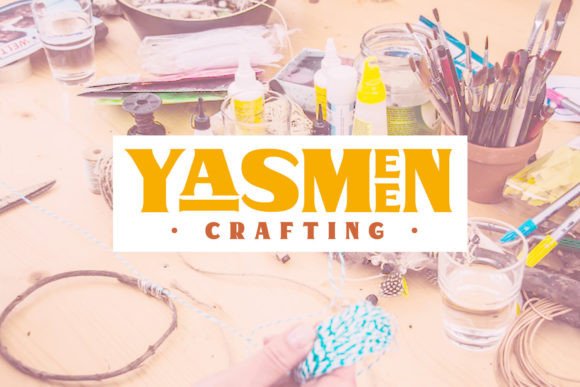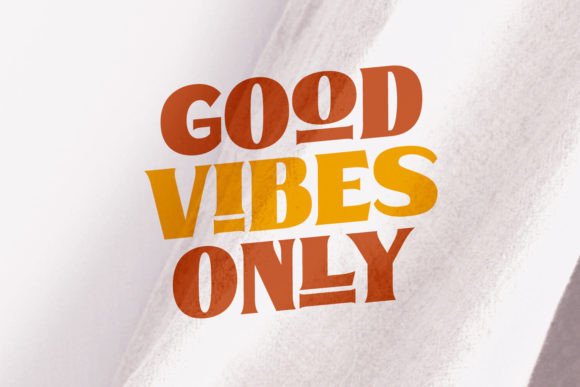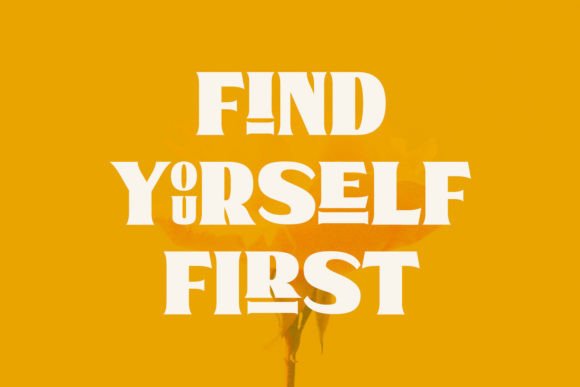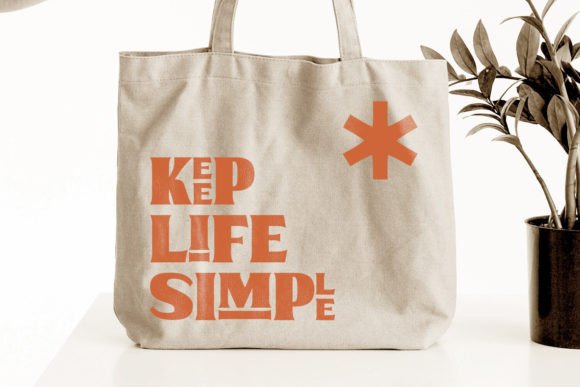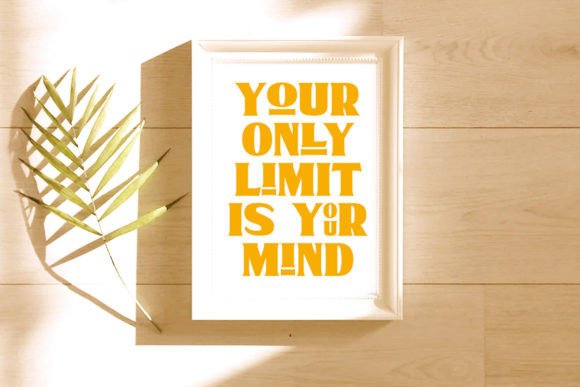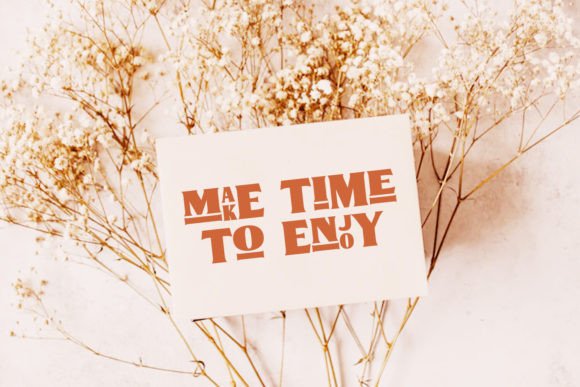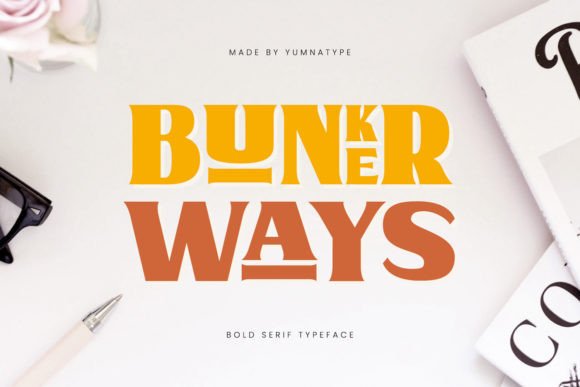
The Power of Bunker Ways Font: A Designer’s New Best Friend
I still remember the design project that led me to discover Bunker Ways font. I was working on a branding project for a construction company, and my client specifically asked for a font that conveyed strength, reliability, and professionalism. I scoured the internet, tried out countless fonts, but none seemed to fit the bill. That was until I stumbled upon Bunker Ways. Its bold, commanding presence immediately caught my attention, and I knew I had found the perfect fit. In this article, I’ll share my experience with Bunker Ways, its features, and how to make the most of this incredible font.
An Honest Review of Bunker Ways
- ✨ commanding serif design that exudes strength and solidity
- ✅ meticulously crafted letters with clean lines and sharp angles that command attention
- 💯 bold weight that adds to its authoritative presence
- 🎨 versatility – perfect for headings, titles, and making strong typographic statements
While Bunker Ways is an excellent font, it’s not without its quirks. Here are a few things to keep in mind:
- 🤔 Limited use in body text – due to its bold weight, Bunker Ways might not be the best choice for lengthy paragraphs
- ⚠️ Requires careful pairing with other fonts to maintain visual harmony
A Practical Guide to Using Bunker Ways
Bunker Ways was crafted with precision and attention to detail, inspired by the industrial and architectural world. Its designer aimed to create a font that would convey strength, solidity, and professionalism, perfect for making a bold statement.
| Font Name | Bunker Ways Font |
| Author | Yumna_Type |
Q: What is Bunker Ways font best used for?
A: Bunker Ways is ideal for headings, titles, and making strong typographic statements. Its bold weight and commanding presence make it perfect for construction, architecture, and engineering brands.
Q: Can I use Bunker Ways for body text?
A: While Bunker Ways can be used for body text, its bold weight might make it less suitable for lengthy paragraphs. It’s best used for headings and titles.